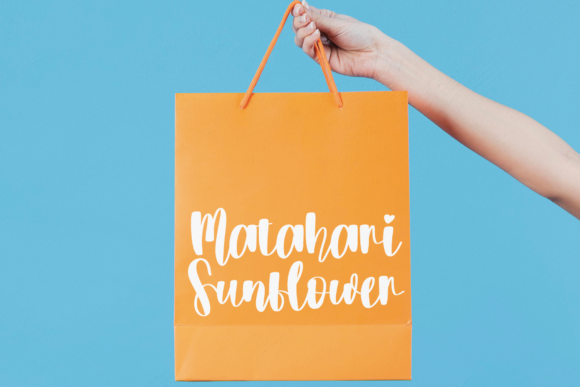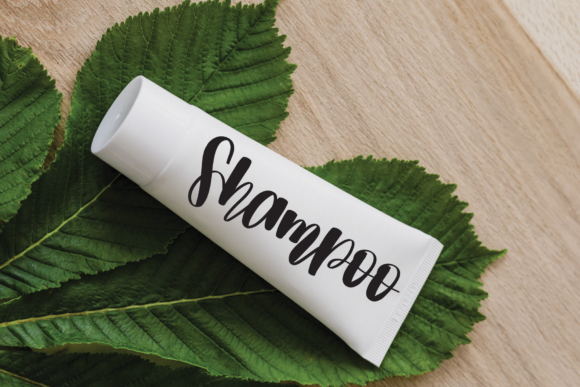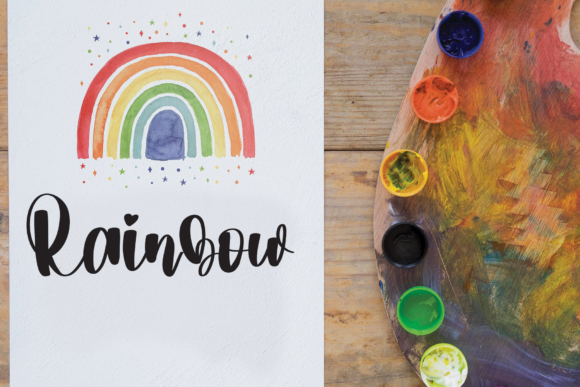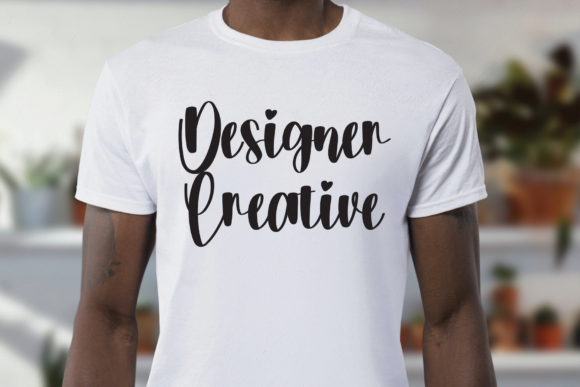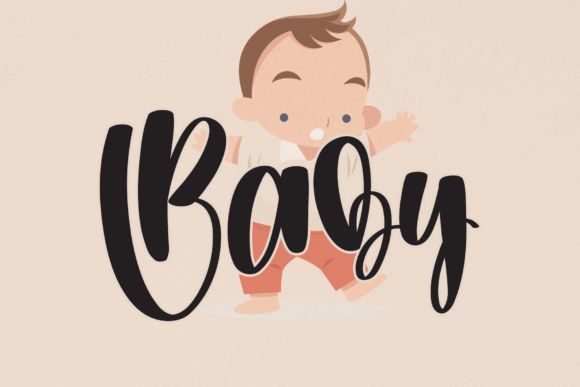
Baby Font: The Sweet and Delicate Handwritten Font for Romantic Designs
Baby Font is a beautiful, sweet, and delicate handwritten font that is perfect for adding a romantic and personalized touch to your designs. With its dainty and joyful feel, this font is ideal for writing wedding invitations, cards, and other designs that require a touch of elegance and sophistication.
What Makes Baby Font So Special?
Baby Font is a unique and charming font that stands out from other fonts due to its distinctive handwritten style. The font features delicate and intricate strokes, which give it a romantic and whimsical feel. The letters are carefully crafted to create a sense of fluidity and movement, making it perfect for designs that require a touch of elegance and sophistication.
Baby Font is an ideal choice for wedding invitations, cards, and other romantic designs. The font’s delicate and dainty feel makes it perfect for expressing love and affection. Whether you’re designing a wedding invitation, a love letter, or a romantic card, Baby Font is sure to add a touch of sweetness and romance to your design.
Why Designers and Crafters Love Baby Font
Designers and crafters love Baby Font for its versatility and ease of use. The font is perfect for a wide range of design projects, including:
- Wedding invitations and cards
- Romantic letters and love notes
- Stationery and journaling
- Digital art and illustrations
The font is also easy to read and understand, making it perfect for designs that require a clear and concise message.
Benefits of Using Baby Font
There are many benefits to using Baby Font in your designs. Here are some of the most significant advantages:
- Unique and distinctive style: Baby Font has a unique and distinctive style that sets it apart from other fonts.
- Elegant and sophisticated feel: The font has an elegant and sophisticated feel that is perfect for romantic designs.
- Easy to read and understand: Baby Font is easy to read and understand, making it perfect for designs that require a clear and concise message.
- Versatile: The font is versatile and can be used for a wide range of design projects.
In conclusion, Baby Font is a beautiful and charming handwritten font that is perfect for adding a romantic and personalized touch to your designs. With its delicate and dainty feel, this font is ideal for writing wedding invitations, cards, and other designs that require a touch of elegance and sophistication. Whether you’re a designer or a crafter, Baby Font is a great choice for any design project that requires a unique and distinctive style.